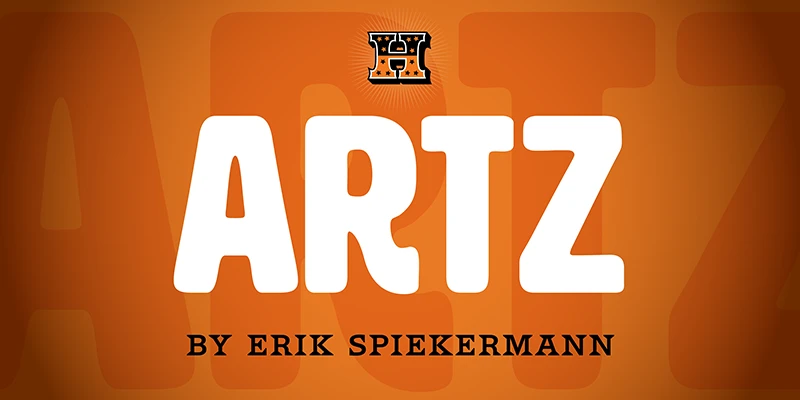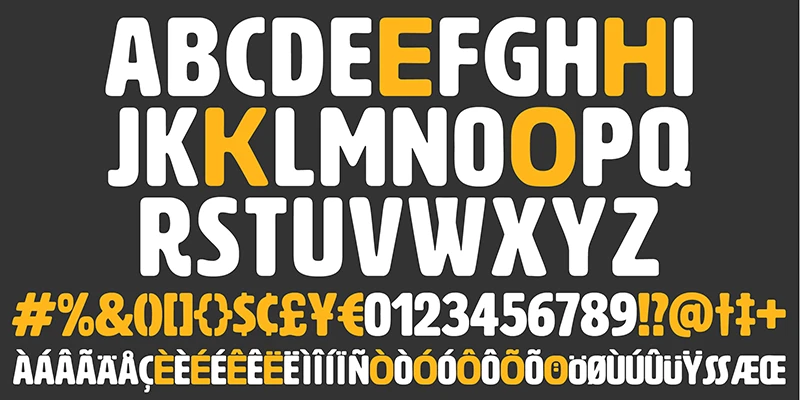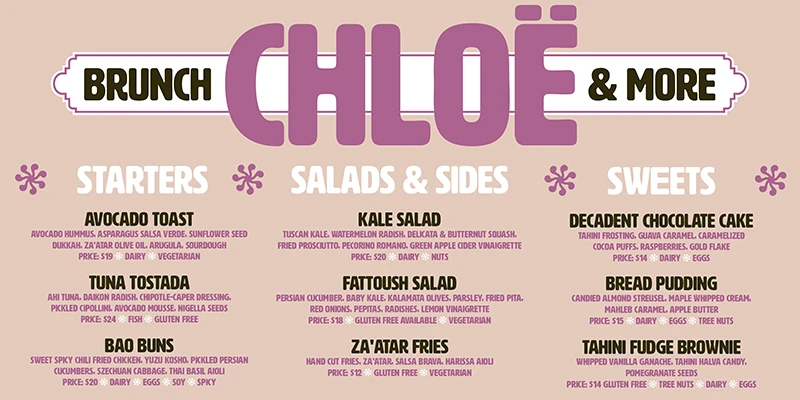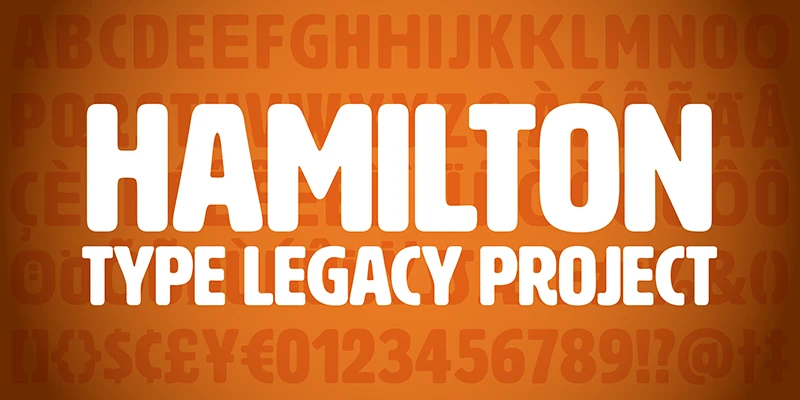
HWT Artz evokes bold early 20th-century European poster lettering. It was designed by Erik Spiekermann for his own print studio, P98a, in Berlin. The rounded corners and robust shapes stand up to the punishing world of backlit signs and bring a bit of levity to all cap texts. At smaller sizes, the softer shapes radiate friendliness without straying toward whimsy. The outside curves are largely clothoidal and always find the smoothest transition from straight to curved.
Designed by Erik Spiekermann